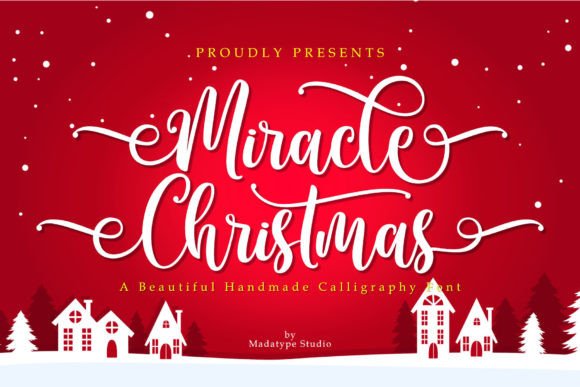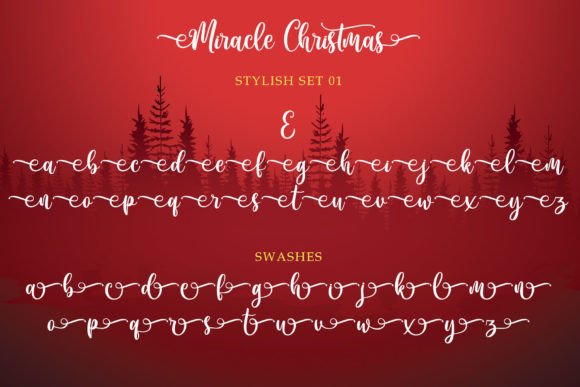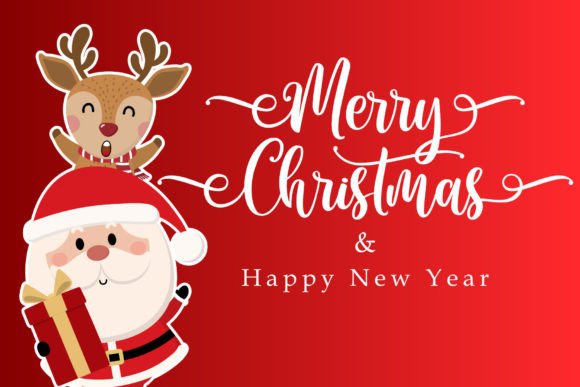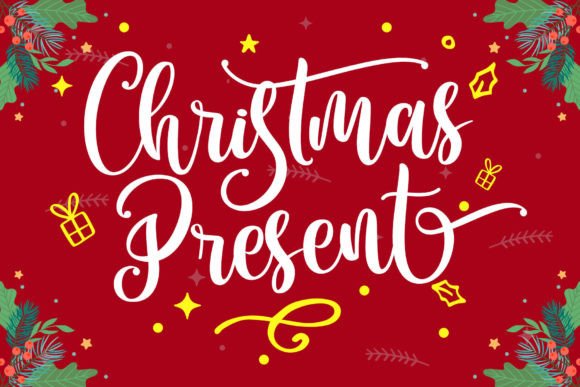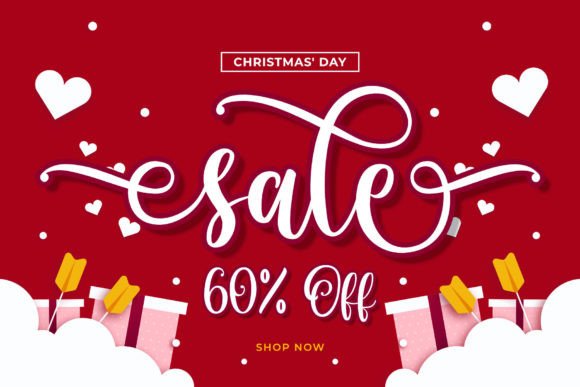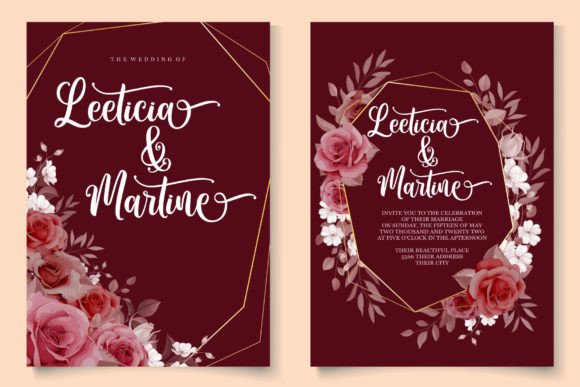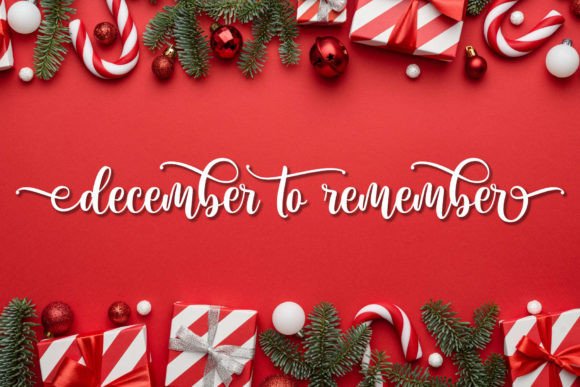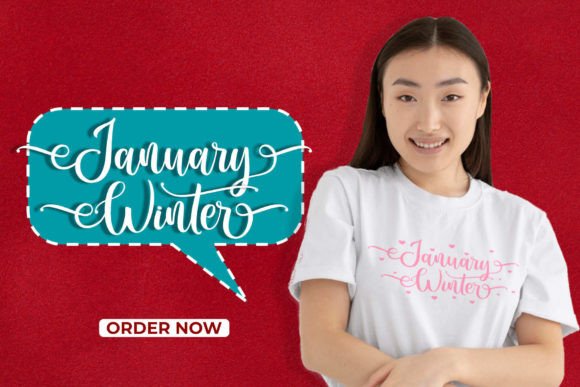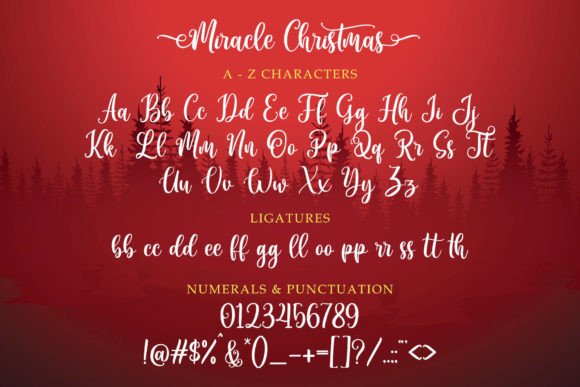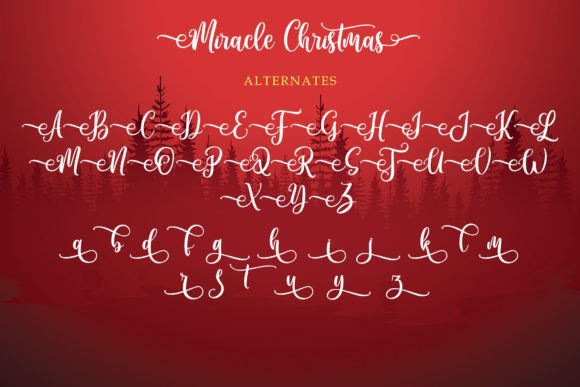
Miracle Christmas Font
Add Holiday Cheer with Miracle Christmas Script Font
The Miracle Christmas Script Font is a quirky and natural hand-drawn typeface made for the holiday season. With its playful strokes and festive charm, this script font brings a joyful personality to any project. Whether you’re designing Christmas cards, branding seasonal products, or decorating your blog, Miracle Christmas makes everything feel merry and bright.
Designed for Holiday Crafts and Festive Branding
Miracle Christmas shines in Christmas-themed designs, holiday merchandise, and crafting projects that need a warm and personal touch. Its natural, handwritten look evokes feelings of nostalgia and celebration, making it ideal for creating meaningful, seasonal content.
In addition, this font fits beautifully into wedding invitations, blog headers, and custom holiday cards. Its versatility ensures that no matter the project, your message will be delivered with charm and clarity.
A Hand-Drawn Script with Personality
What makes the Miracle Christmas Script Font stand out is its lively, hand-drawn character. Each letter has a unique bounce and rhythm, adding motion and personality to your text. As a result, your designs feel handcrafted and full of life.
Moreover, this font is PUA encoded, meaning you can access all of its alternate characters, ligatures, and glyphs with ease. This feature gives you creative control and flexibility, allowing you to create unique and customized layouts effortlessly.
Ideal for Digital, Print, and DIY Use
Whether you’re crafting printables, designing social media posts, or preparing branded merchandise, Miracle Christmas adapts beautifully. Its clean yet expressive design works across formats and is suitable for everything from mugs and apparel to gift tags and product packaging.
Furthermore, it pairs well with serif or sans-serif fonts, giving you plenty of room to experiment and build eye-catching compositions.
Why Choose Miracle Christmas Script Font?
• Festive, hand-drawn style with playful personality
• Ideal for Christmas cards, crafts, and seasonal branding
• PUA encoded for easy access to alternates and glyphs
• Works across digital, print, and handmade projects
• Adds warmth and creativity to any holiday design
Let Miracle Christmas Make Your Designs Shine
In conclusion, the Miracle Christmas Script Font is a joyful and expressive typeface designed to bring magic to the holiday season. Its whimsical and handcrafted appearance adds heartfelt charm to every word.
Whether you’re preparing seasonal crafts, designing holiday promotions, or just want to create something magical, this font gives your work the festive boost it needs. Let Miracle Christmas be your creative companion this holiday season—and bring every idea to life with joy and style.